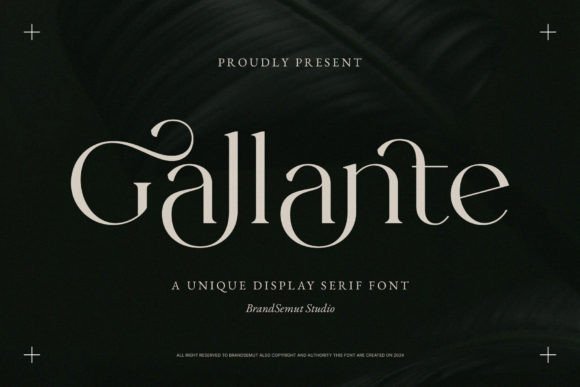
For designers, the right font can make all the difference. That’s why we’re excited to introduce you to the Gallante Font, a modern and classy typeface designed to take center stage. With its clean lines and smooth curves, Gallante is perfect for display headings, logos, branding, and more. Whether you’re working on a magazine, product packaging, or invitations, Gallante Font adds an extra touch of class to any project.
Gallante Font Key Features
- Unique Characteristics: Gallante Font features a unique blend of elegant and modern design elements, including curved lines, geometric shapes, and subtle texture, making it ideal for creative and artistic applications.
- Font Style: Gallante Font comes in several styles, including Regular, Italic, Bold, and Bold Italic, providing flexibility and versatility in typography and design.
- Scalability: The font is designed to be highly scalable, ensuring that it remains legible and visually appealing at various sizes and resolutions, from small text to large headings and titles.
Gallante Font Review
Initially, I was drawn to the elegant and sophisticated vibe of the Gallante Font. It has a ✨ refined, high-end feel that makes it perfect for luxury brands and upscale designs. The font’s combination of modern and classic elements creates a unique aesthetic that can elevate any visual project.
One of the strengths of the Gallante Font is its versatility. It’s available in various weights and styles, making it easy to use in different contexts. The font also has a ✨ high level of customization, allowing designers to fine-tune the look to suit their specific needs.
- ⚠️ The Gallante Font may not be the best choice for body text, as it can be difficult to read at smaller font sizes. This is due to its ✨ ornate and intricate design, which can make it harder to discern individual letters.
- ⚠️ Additionally, the font’s ✨ high-end feel may not be suitable for every project. For more casual or playful designs, the Gallante Font may come across as too formal or pretentious.
Overall, the Gallante Font is a solid choice for designers who need a sophisticated and refined font for their projects. However, it’s essential to consider the specific requirements of your design and weigh the potential benefits and limitations of using this font.
The Gallante Font is particularly useful for creating elegant and sophisticated designs, such as:
- Book covers and publishing materials
- Wedding and event signage